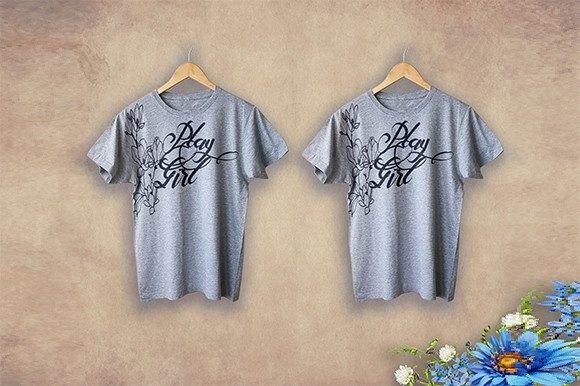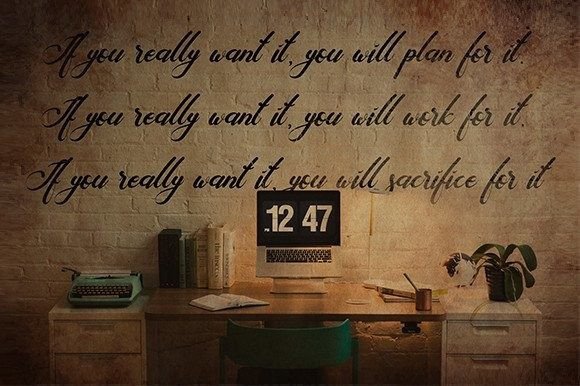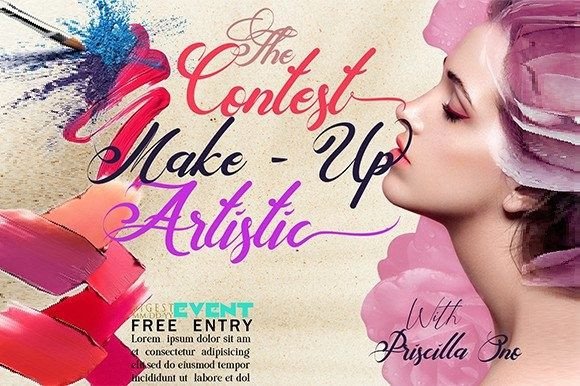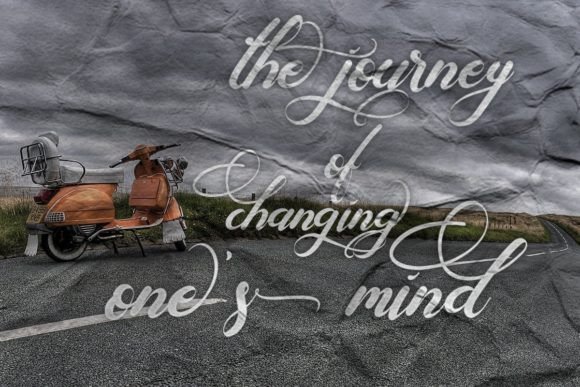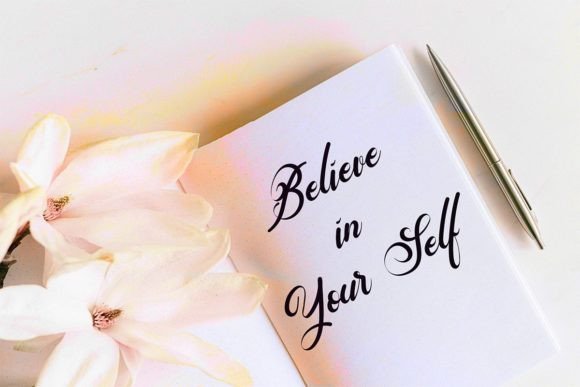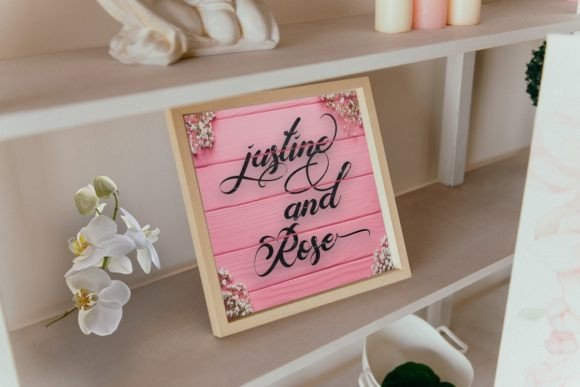
Discover the Timeless Elegance of Father Font
Have you ever been inspired by a single word or phrase that sparks a creative idea? For many designers, this moment is a catalyst for bringing their vision to life. It’s a fleeting feeling that can be captured in the perfect font, one that speaks to the heart of the message. For those seeking to craft memorable logos, branding, and quotes, look no further than Father Font.
This elegant, vintage, and flowing handwritten font is the perfect choice for designers who crave sophistication and style. With its smooth curves, Father Font is ideal for fashion branding or editorial designs. Its PUA encoding ensures that all of its amazing glyphs and ligatures are easily accessible, allowing designers to unlock its full potential and create truly unique designs.
Father Font Key Features
- Font Family: Father Font is a unique, custom-designed font family with a wide range of styles and weights.
- Unique Characteristics: Features a distinctive, hand-drawn feel with subtle texture and imperfections, adding a touch of personality to any design.
Design Review: Father Font
Overall, I think Father Font is a solid choice for body text and headings. ✨ The font’s warm and inviting feel makes it perfect for content-heavy websites, blogs, or even children’s educational materials. The font’s clarity is also a plus, as it’s easy to read, even at smaller font sizes.
One of the things I appreciate about Father Font is its consistency across different devices and screen sizes. ✨ The font renders well on both desktop and mobile devices, which is essential for a modern web font. Additionally, the font’s OpenType features allow for advanced typographic control, giving designers more flexibility in creating visually appealing designs.
One limitation of Father Font is its limited language support. ⚠️ While it includes a wide range of Latin-based languages, it falls short when it comes to non-Latin scripts. This may be a concern for designers working on international projects.
Despite its limitations, I think Father Font is a great choice for designers looking for a warm and inviting font. Its clarity, consistency, and advanced typographic features make it a solid addition to any design project. However, designers working on projects that require non-Latin script support may want to explore other options.
Recommendation
- Use Father Font for body text and headings in content-heavy websites, blogs, or educational materials.
- Avoid using Father Font for projects that require non-Latin script support.
- Take advantage of Father Font’s OpenType features to create visually appealing designs.
Getting the Most Out of “Father Font”
Experiment with different font sizes, colors, and styles to achieve the desired look.
Use “Father Font” in combination with other design elements to create a cohesive and visually appealing design.
Consider using “Father Font” for headings and titles to create a clear hierarchy of information.
“Father Font” is ideal for:
Designing a logo or brand identity.
Creating a visually appealing presentation or document.
Adding